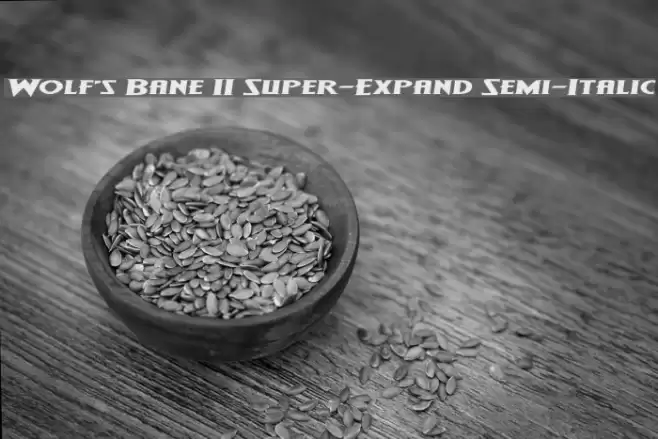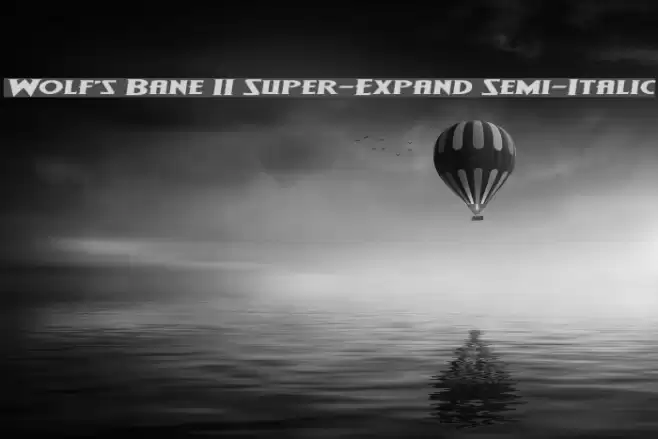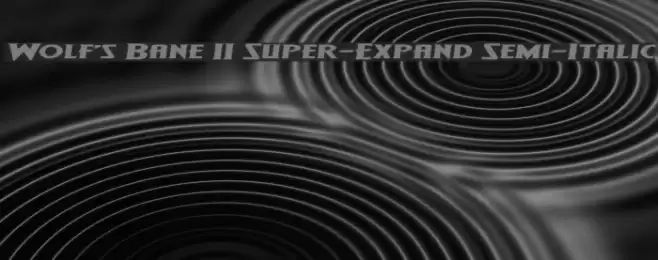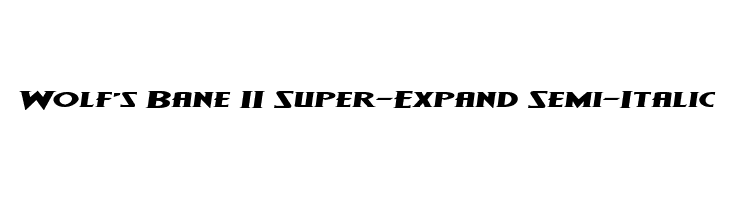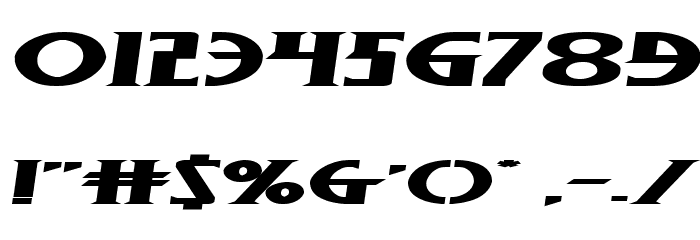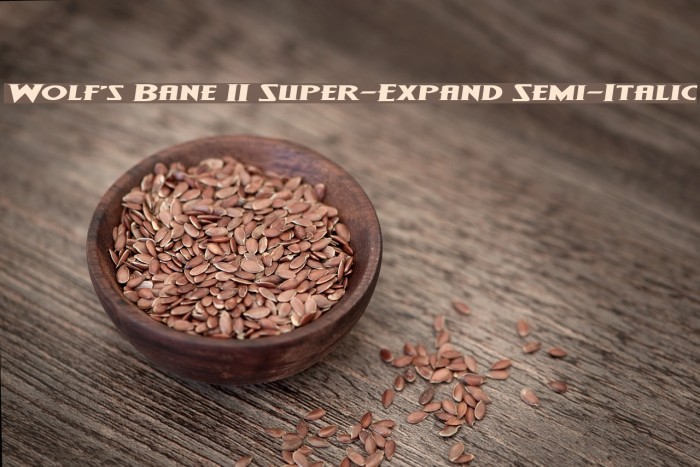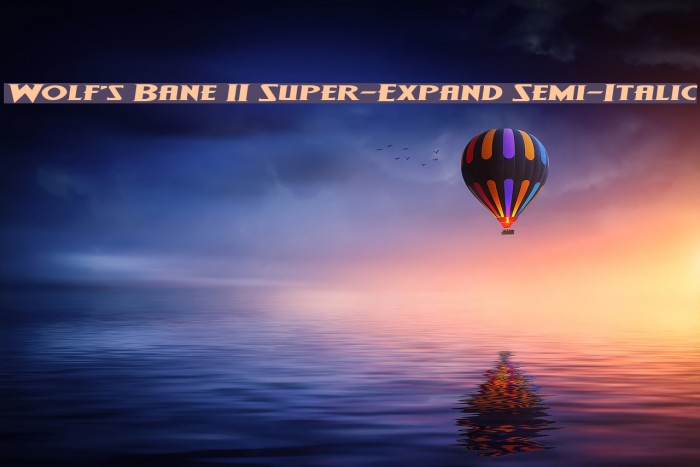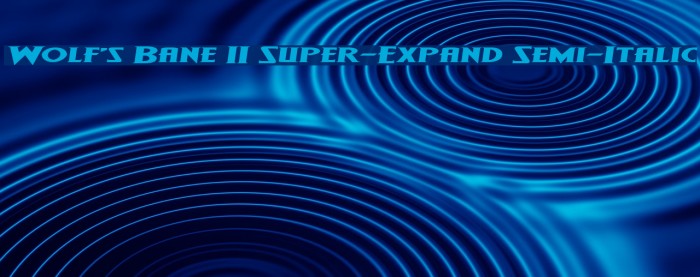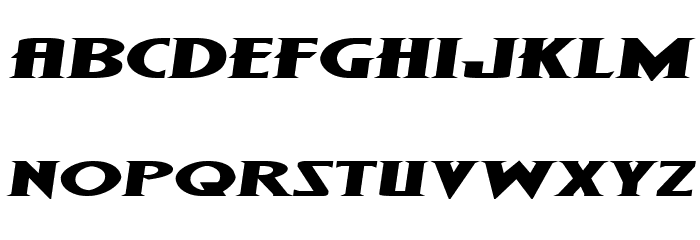
Wolf's Bane II Super-Expand Semi-Italic Font
Wolf's Bane II Super-Expand Semi-Italic Description
This font features a bold and dynamic style with a strong presence. The characters are designed with sharp, angular edges and a slight italic slant, giving them a sense of motion and energy. The uppercase letters are particularly striking, with a wide stance and exaggerated serifs that add to the overall dramatic effect. The numbers and special characters maintain this bold aesthetic, ensuring consistency across all glyphs. The font's expanded width allows for a commanding presence, making it ideal for attention-grabbing headlines or impactful logos.
A bold, italic, and expanded font with sharp, angular edges for a dynamic look from Uncategorized fonts.
- Proposed Projects: Ideal for use in branding, posters, headlines, and any design requiring a bold, impactful typeface.